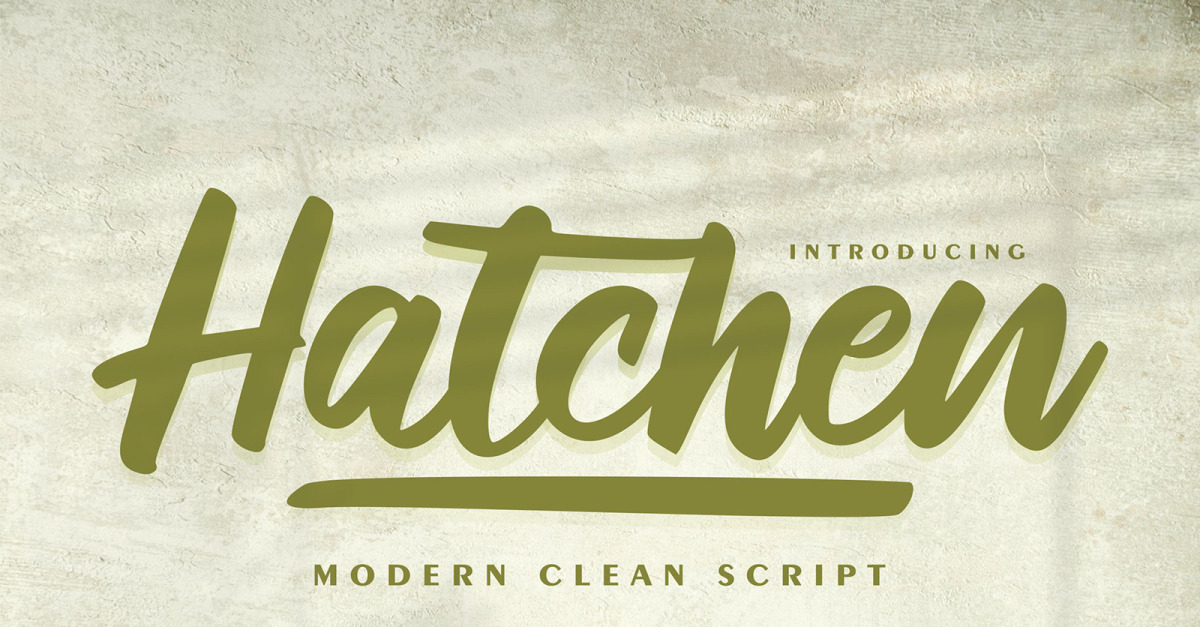
Hatchen | Modern Clean Cursive Font
**Hatchen | Modern Clean Script** with a calligraphy style, So beautiful on invitation like greeting cards, branding materials, business cards, quotes, posters, and more!